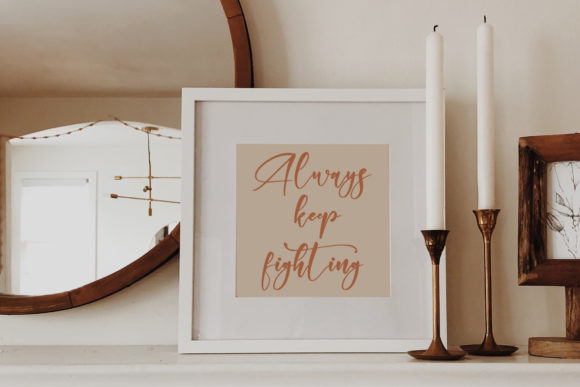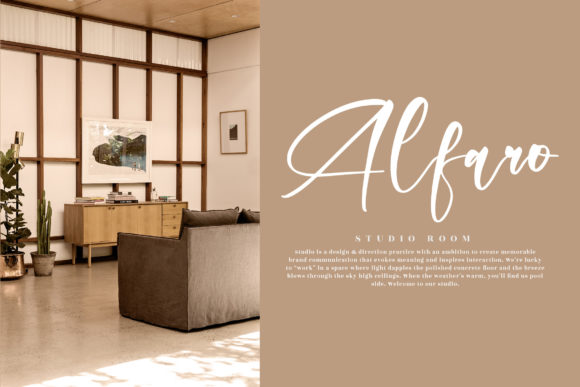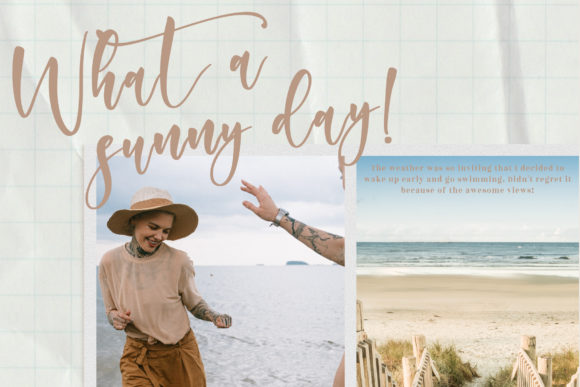
Introduction to Jelonta Font
Have you ever found yourself staring at a blank canvas, waiting for the perfect font to bring your creative project to life? I’m sure many designers can relate to this feeling. As I sat in front of my computer, trying to decide on the perfect font for a new design, I stumbled upon the Jelonta Font. Its elegant and whimsical design immediately caught my eye, and I knew I had to share it with fellow designers.
What makes the Jelonta Font truly special is its PUA encoding, which allows for seamless access to all of its beautiful glyphs and swashes. This means you can customize your designs with precision and ease, giving you the freedom to create high-quality designs that truly stand out.
Key Features of Jelonta Font
- High-quality design: Jelonta Font is designed to provide a unique and creative touch to your projects, making it a valuable resource for designers.
- Unique character set: The font features a unique character set, including a range of creative and decorative glyphs, making it an excellent choice for designers looking to add a touch of personality to their projects.
- Perfect for creative projects: Jelonta Font is ideal for use in creative projects, such as logos, branding materials, and other design resources.
Honest Review: Jelonta Font
As a designer, I’m always on the lookout for high-quality design resources that can elevate my creative project to the next level. Recently, I had the chance to work with the Jelonta Font, and I’m excited to share my honest review with you.
What works well with the Jelonta Font is its unique and modern design. The font has a clean and minimalist aesthetic that makes it perfect for a wide range of creative projects, from logos to brochures. The font is also available for free download, which is a huge plus for designers who are working on a tight budget.
- Unique and modern design
- High-quality and crisp font
One limitation of the Jelonta Font is that it may not be suitable for very formal or traditional designs. The font has a modern and edgy feel to it, which may not be the best fit for more conservative or classic designs.
Overall, I’m really impressed with the Jelonta Font. It’s a great resource for designers who want to add some personality and style to their creative project. While it may not be suitable for every design, it’s definitely worth checking out for designers who are looking for a unique and modern font.
Jelonta Font is a versatile design resource suitable for various creative projects, including digital art, graphic design, and typography. Its high-quality design makes it an excellent choice for presentations, posters, and other visual content.